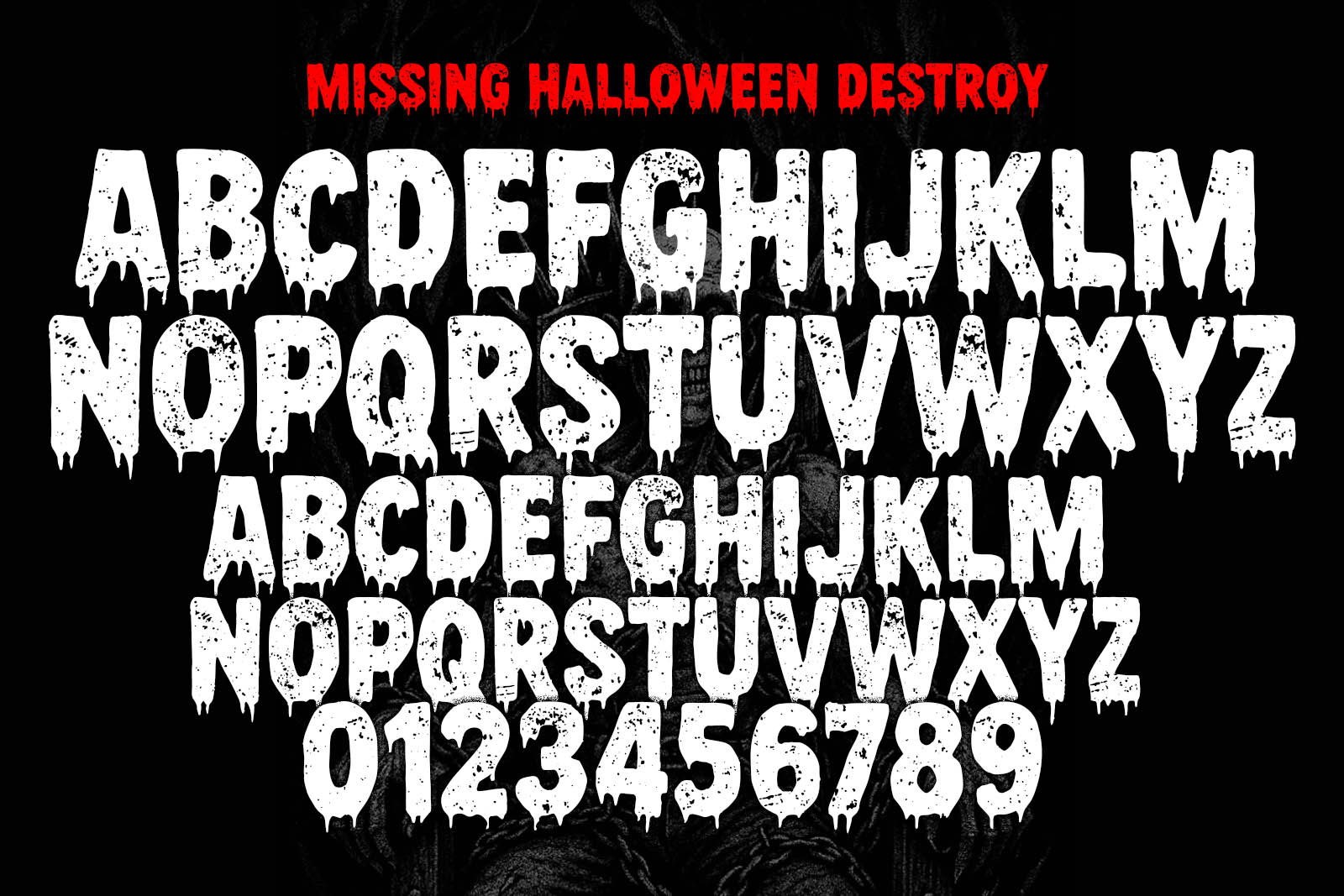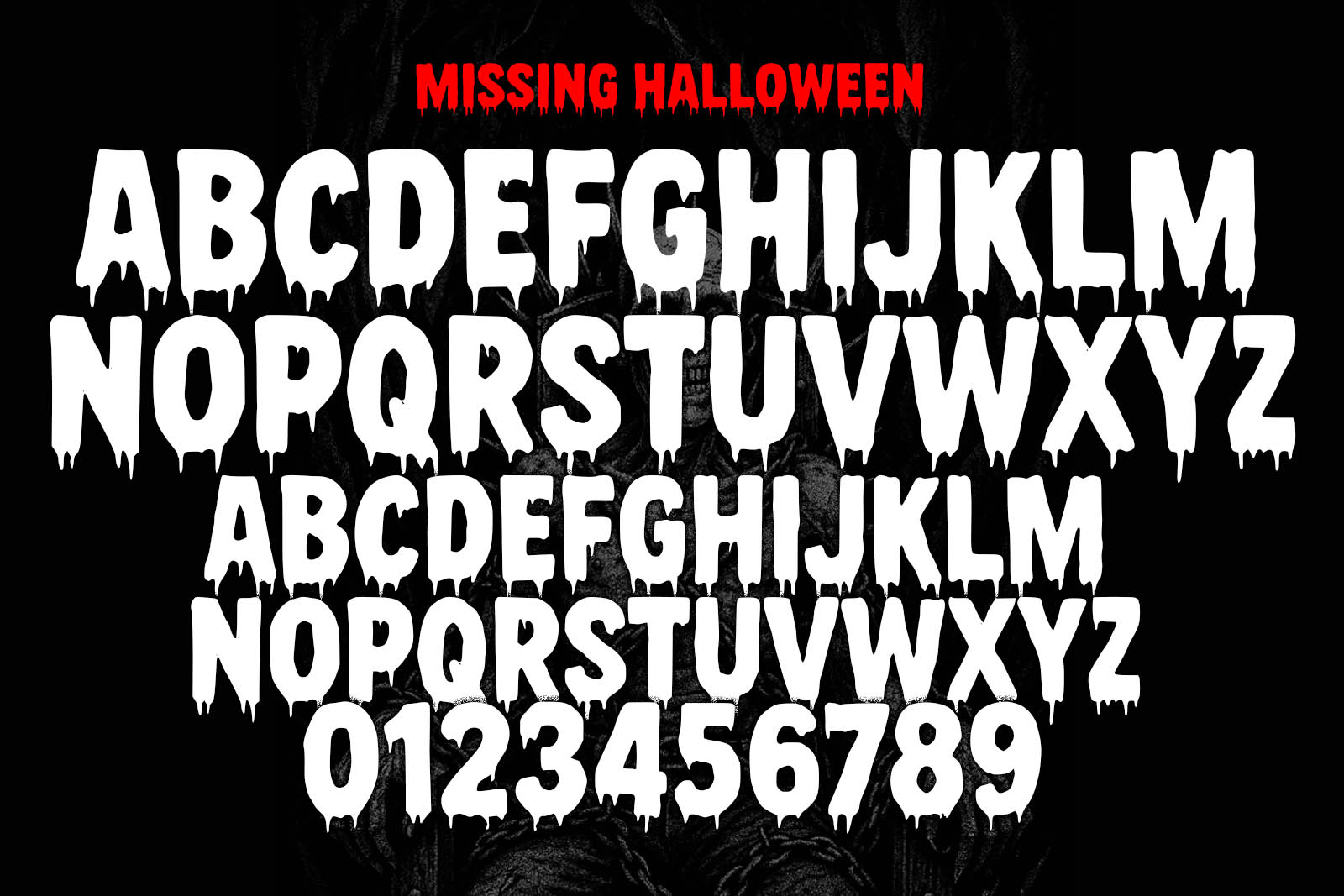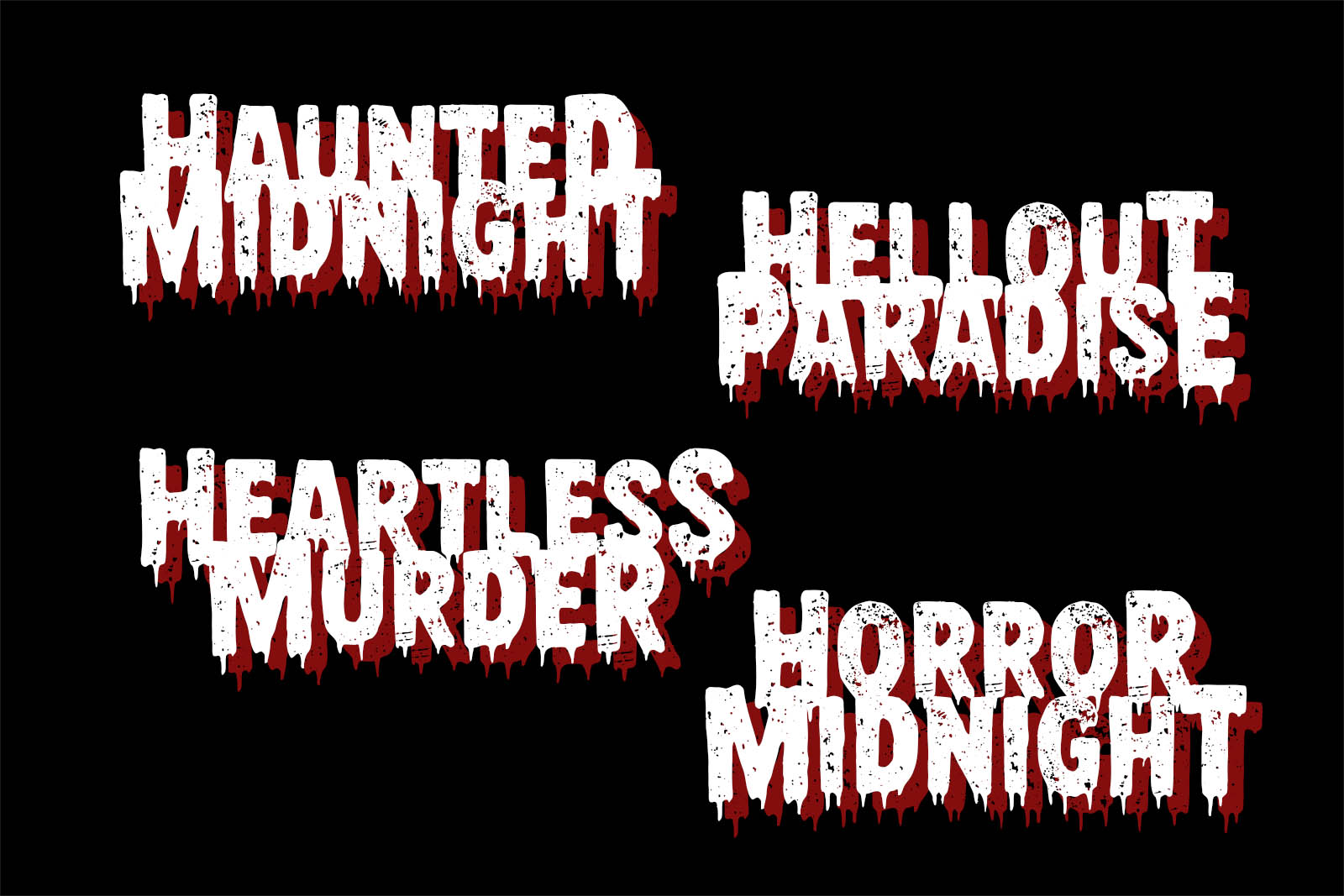
Missing Halloween – Horror Halloween Font by BlackMetalFont.com
Step into a twisted Halloween night where something... or someone... is missing. Missing Halloween is a spooky, distressed horror font inspired by haunted parties, missing person flyers, and terrifying tales under the full moon. Brought to you by BlackMetalFont.com, this typeface blends grunge and horror aesthetics into a chilling visual scream.
Designed with heavy textures, dripping ink effects, and bold yet eerie character shapes, this font is perfect for your most sinister Halloween projects. It captures the chaotic energy of old-school horror films, haunted house posters, eerie party flyers, or black metal-inspired event graphics.
Whether you're designing for a horror movie, an underground blackmetal zine, or an unsettling Halloween-themed social post, Missing Halloween delivers just the right amount of grime and dread. The imperfections in every letter are intentional—symbolizing decay, fear, and the mystery that surrounds the Halloween spirit.
Features:
All-caps horror font with dripping, splattered letterforms
Perfect for Halloween titles, horror packaging, scary posters, and black metal visuals
Inspired by punk flyers, horror cinema, and underground fear culture
Ideal for everything from creepy quotes to Halloween product branding
Turn your Halloween designs into disturbing works of art with Missing Halloween—a true horror font crafted for the brave.